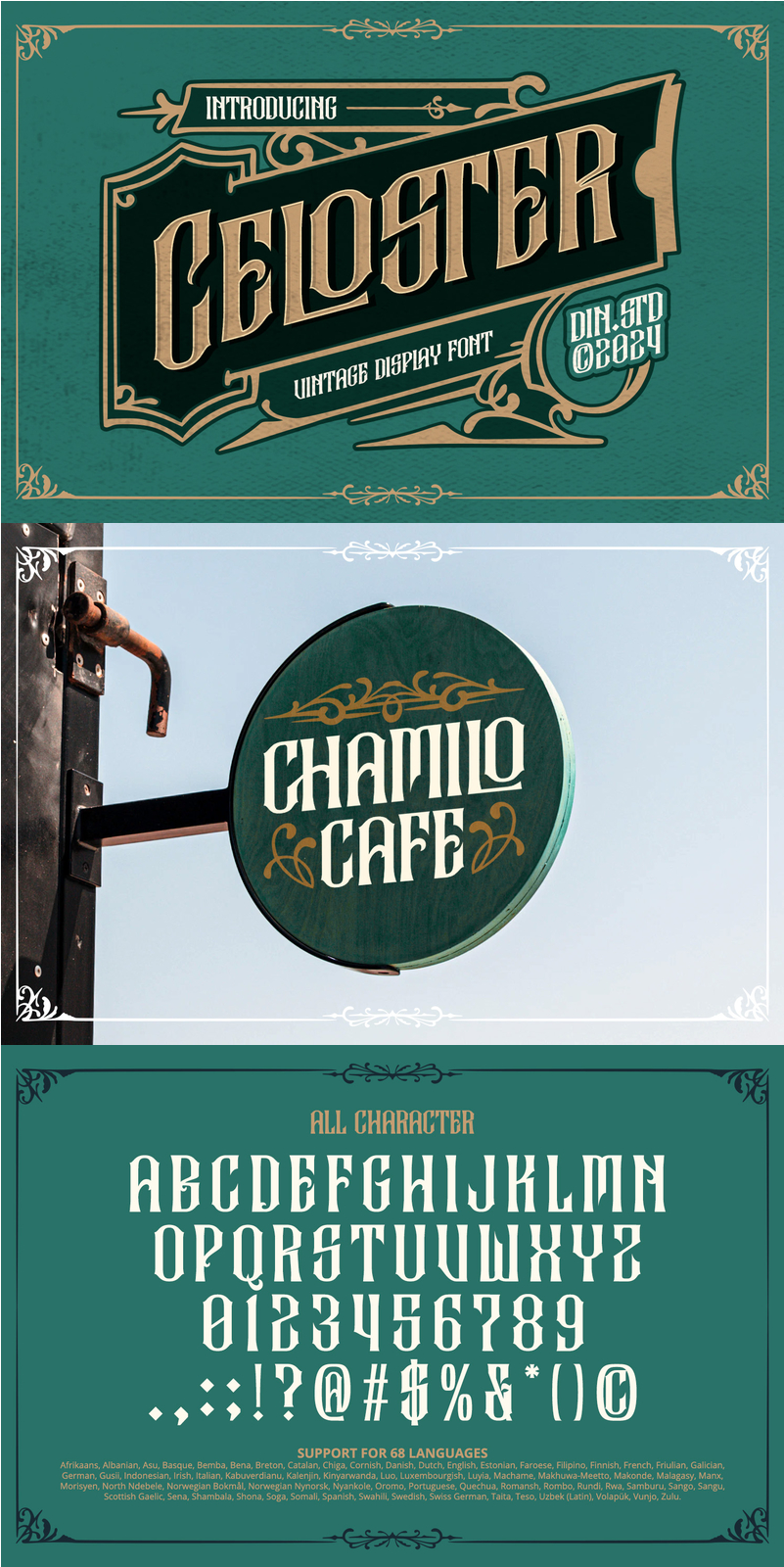
Celoster Font
About Celoster
Introducing the Celoster – a bold, all-caps font designed to make a statement. With its thick, uniform proportions, this font commands attention while maintaining a sense of balance and cohesion. The distinctive outline, which features subtle curves and angles rather than rigid straight lines, adds a unique and creative flair to the design. Celoster is your go-to choice when you need to deliver a powerful visual message with style. As an extra, this font gives ornaments. In addition, enjoy the features here.
Celoster fits in logos, posters, flyers, branding materials, print media, editorial layouts, and many more designs. Find out more ways to use this font by taking a look at the font preview.